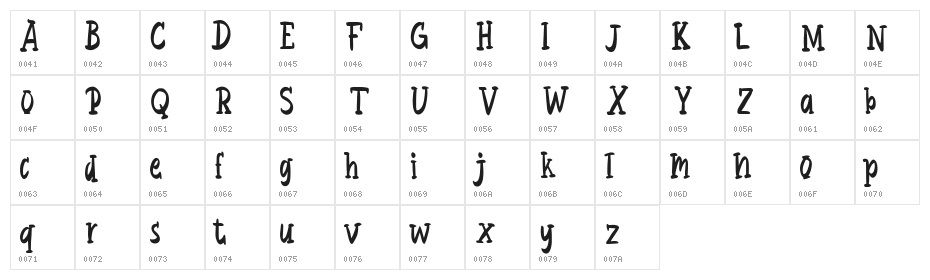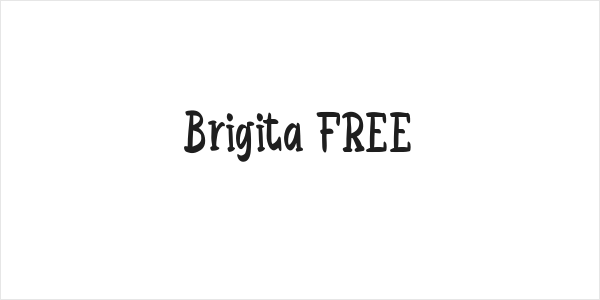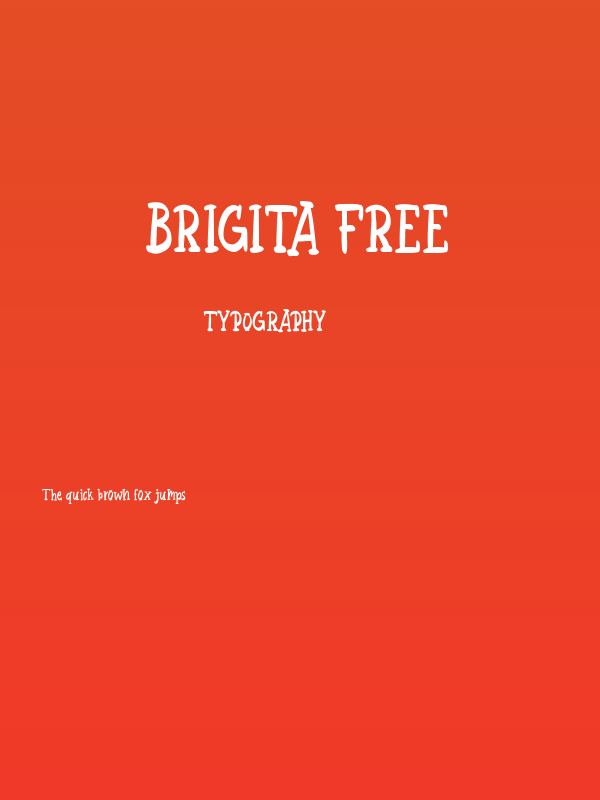
Brigita FREE Font
Brigita FREE Description
This font features a playful and whimsical style, characterized by its irregular and slightly exaggerated letterforms. The strokes are bold and rounded, giving it a friendly and approachable appearance. The uppercase and lowercase letters maintain a consistent style, with some letters having unique, quirky elements that add to its charm. The numbers and special characters follow the same playful design, making it suitable for creative projects. Its overall look is reminiscent of hand-drawn or cartoon-like fonts, which can add a fun and informal touch to any design.
| Proposed Projects | Ideal for children's books, playful branding, greeting cards, and creative posters. |